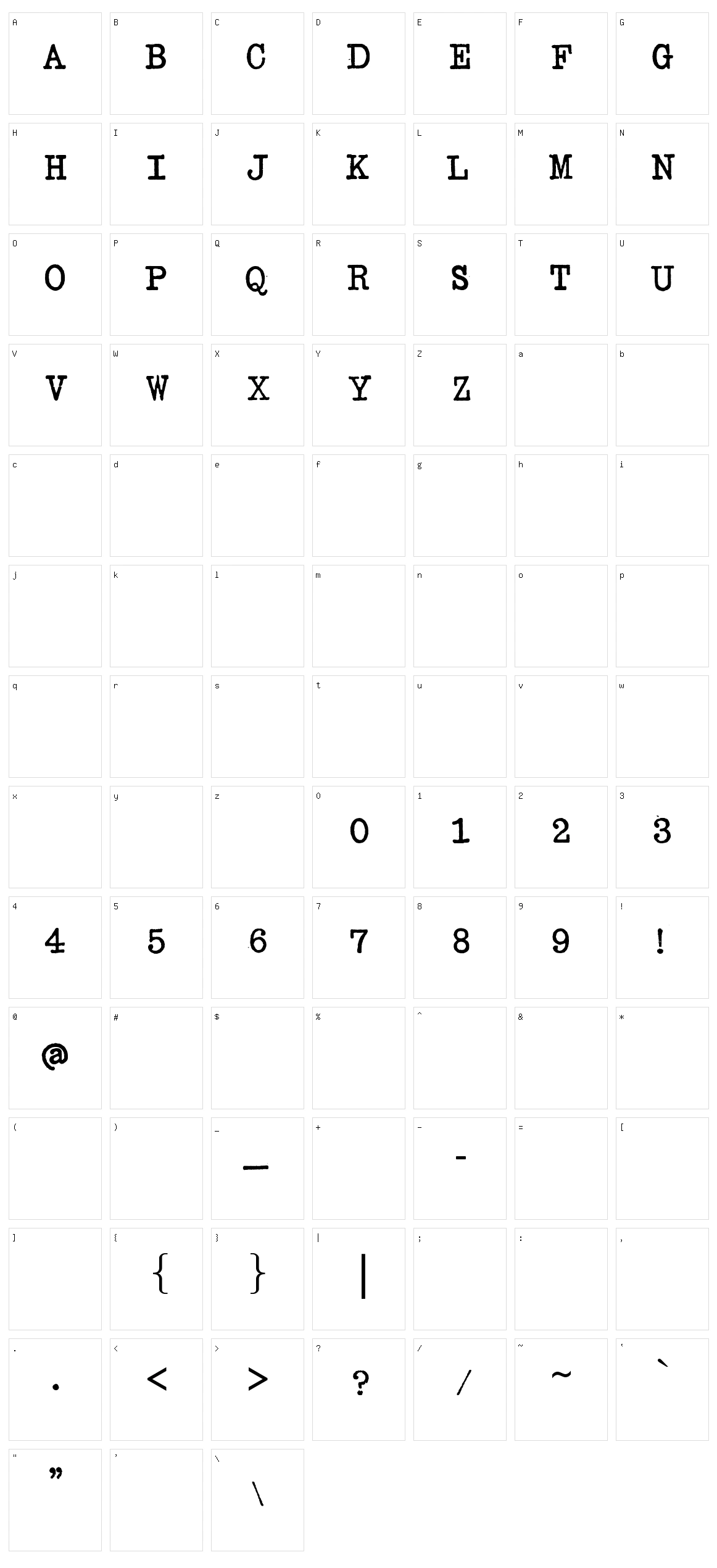
The free font Senta Schreibmaschine is carefully designed by Polish Your Art, showcasing a thoughtful balance of creativity and usability and falls under the Typewriter font style. When you download the ZIP file, it contains only 78.95 KB of font files, making it lightweight and quick to download. Please review the license details below to understand permitted usage and distribution rights. If license information is not available, we recommend using this font for personal projects only or contacting the author directly for commercial usage permissions.